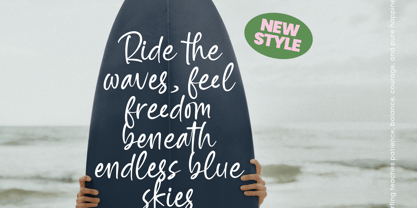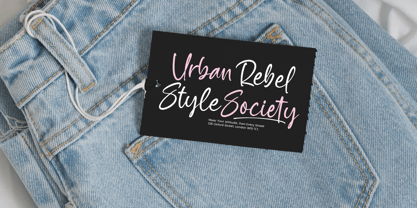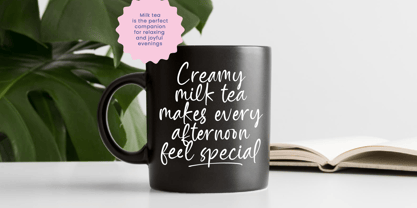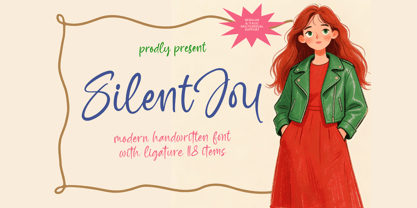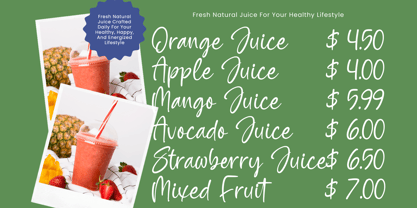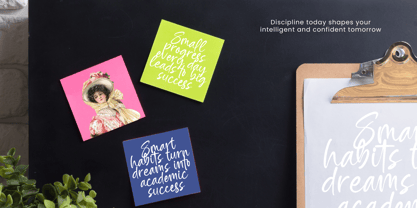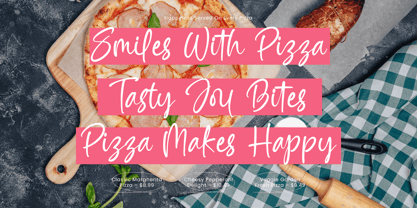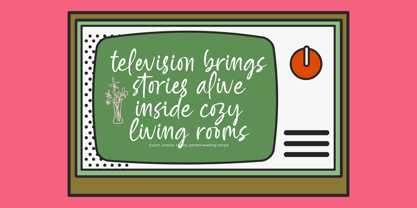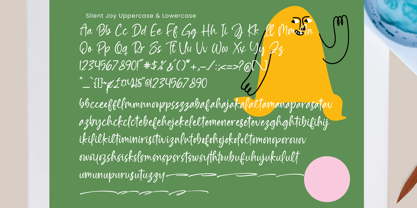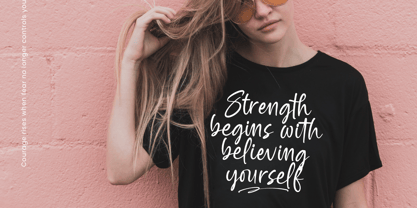
Silent Joy
La famille de polices Silent Joy a été conçue par Heru Utama Putra et publiée par Letterena Studios. Silent Joy contient 2 styles et options de package familial. En savoir plus sur cette famille
Silent Joy is a modern handwritten script font designed with smooth flowing strokes, soft curves, and a relaxed natural rhythm that feels warm, friendly, and effortlessly elegant. The letterforms are clean yet expressive, offering a casual handwritten charm while maintaining clarity for display use. With carefully crafted ligatures and stylistic variations, Silent Joy allows you to create seamless connections and organic typography compositions. Featuring regular and italic styles with multilingual support, this font is perfect for branding, social media graphics, lifestyle projects, invitations, packaging, fashion visuals, and editorial designs that require a modern personal touch. Optimized for both print and digital applications, Silent Joy delivers a balance of simplicity and sophistication, making it an ideal choice for designers seeking a versatile and contemporary handwritten font.